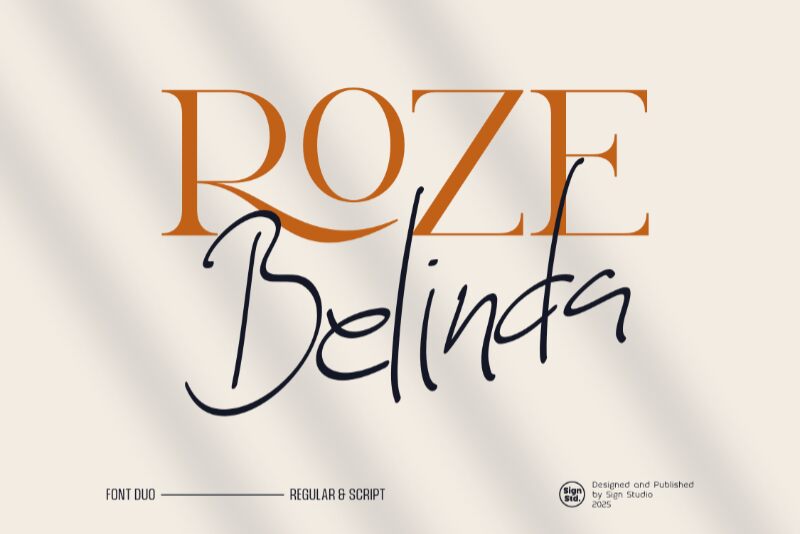
Roze Belinda Script font family by Sign Studio is a handmade typography in a demo, sleek modern display. It’s an all-photos font, where each character was created the traditional way to display a playful relationship. Typical for handwriting, each character will add a playful and personal flow to your text.
Design a greeting or invitation alongside this font style. Use it for greeting cards, posters, branding projects, social media posts, photo labels, menus, t-shirts, and more.